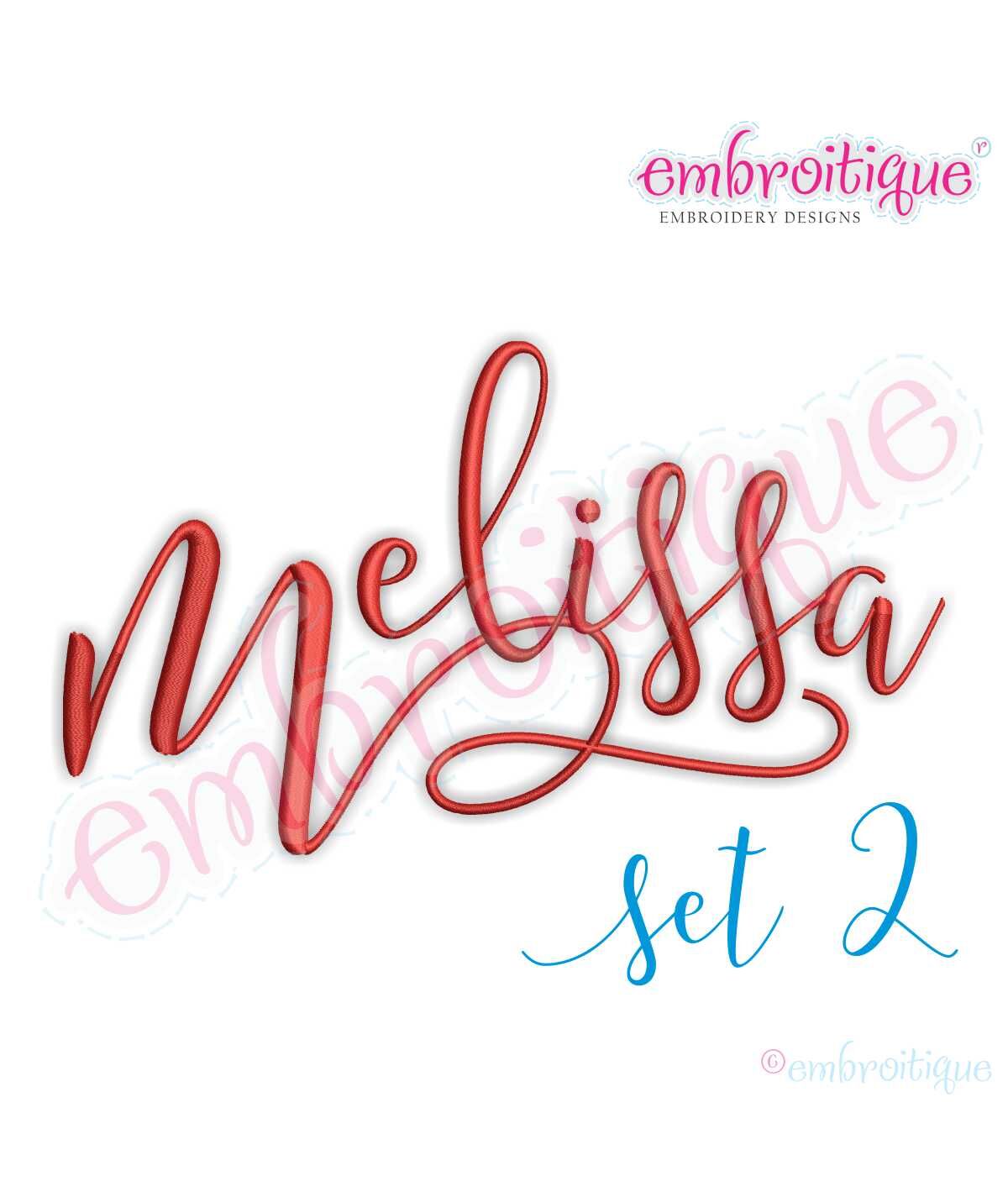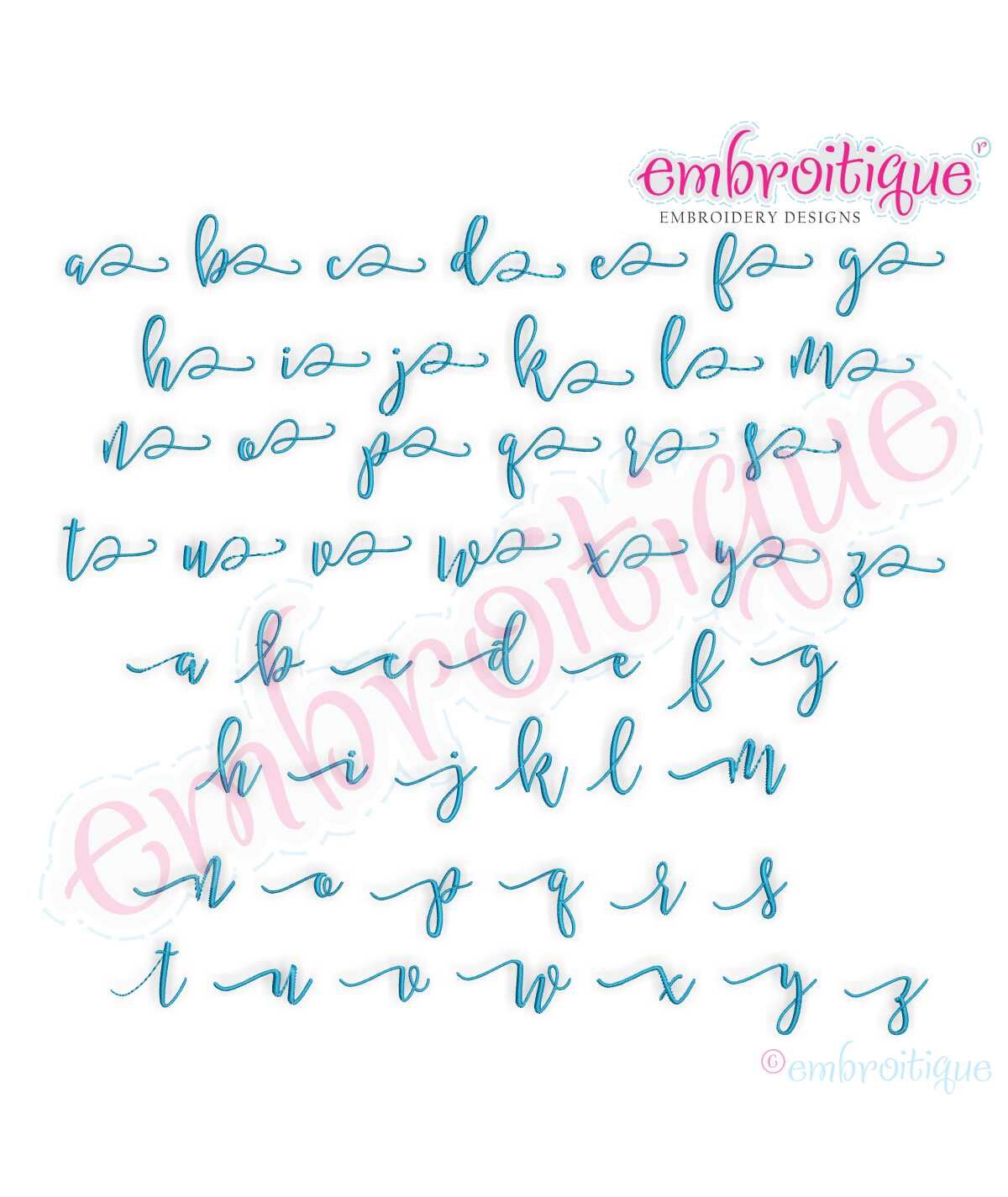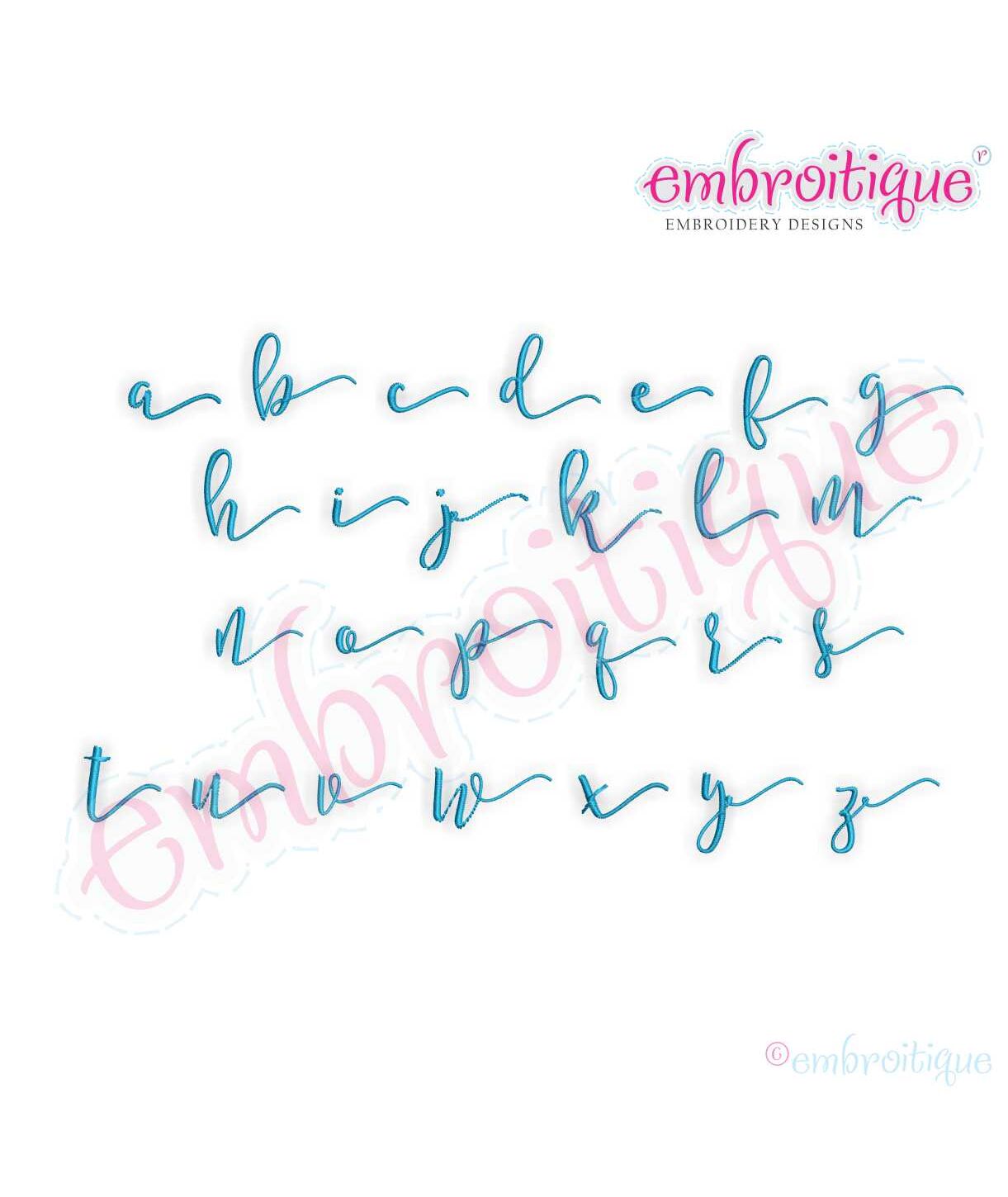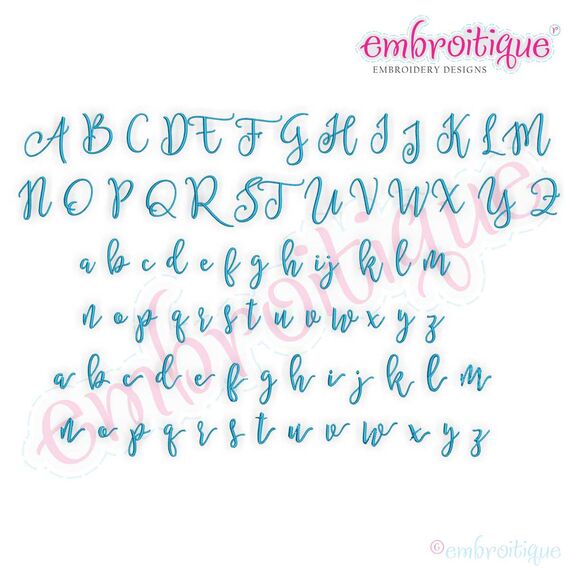
Melissa Monogram Set - Hand Lettered Calligraphy Script - Set 2 - 1", 2", 3"
This is a beautiful hand-lettered callligraphy font. This is the Set 2 of 4 (3 & 4 will be online shortly)
that all work together. This set includes 3 sets of lower case letters a-z. Use this with Set 1 (sold separately) and swap out different letters to create beautiful words and lettering. .BX format includes a .jpg character map.
This is a beautiful hand-lettered callligraphy font. This is the Set 2 of 4.
that all work together. This set includes 3 sets of lower case letters a-z IN ADDITION to all of the upper and lower case letters in Set 1. Combine different letters from each set to create beautiful words and lettering. .BX format includes a .jpg character map.